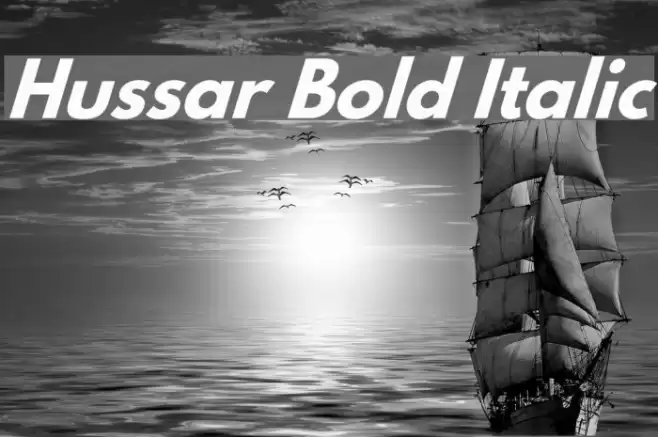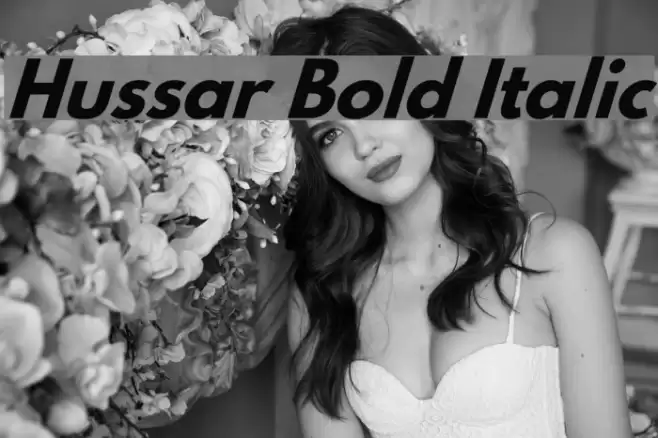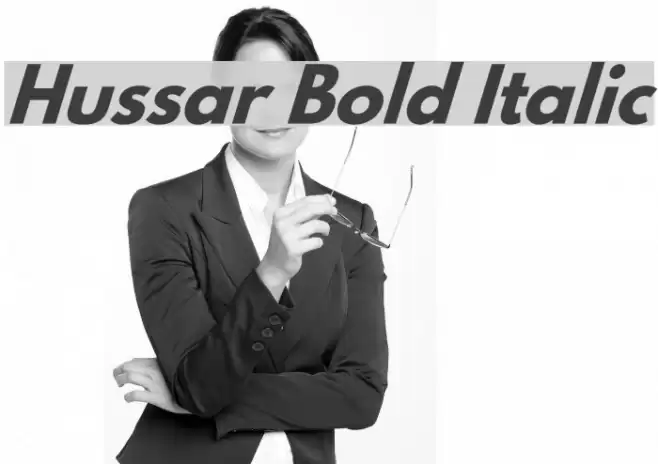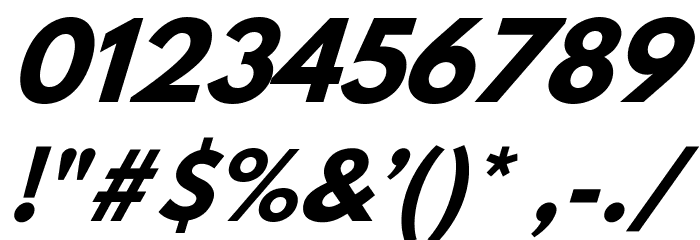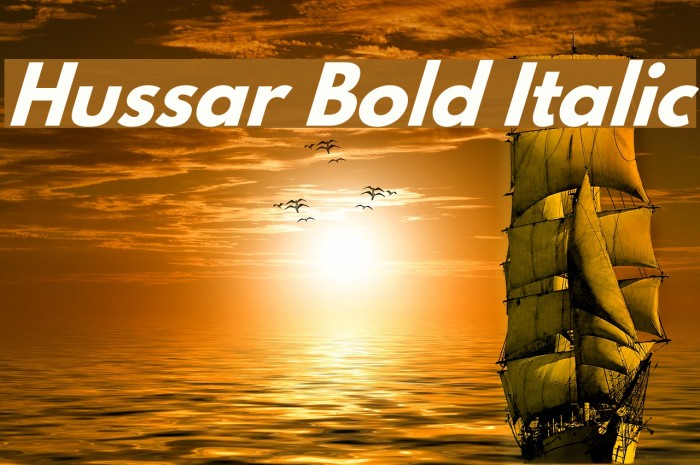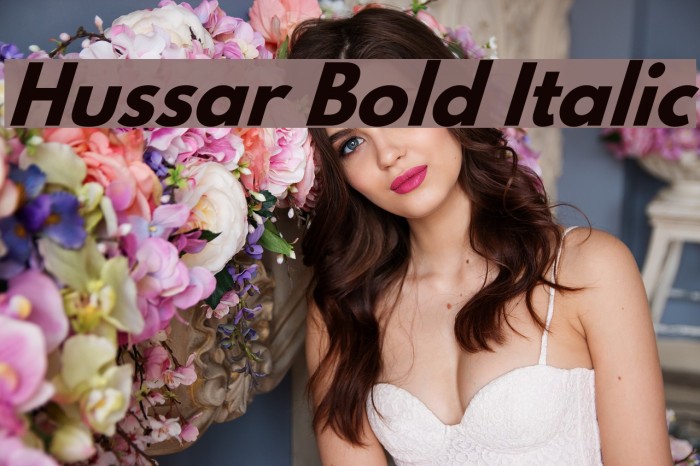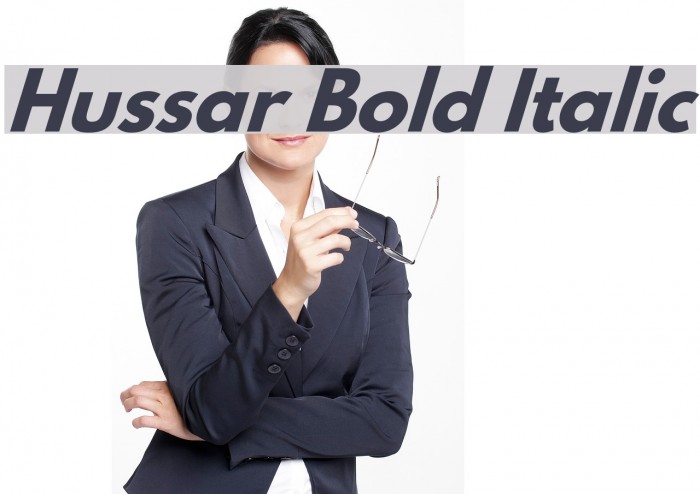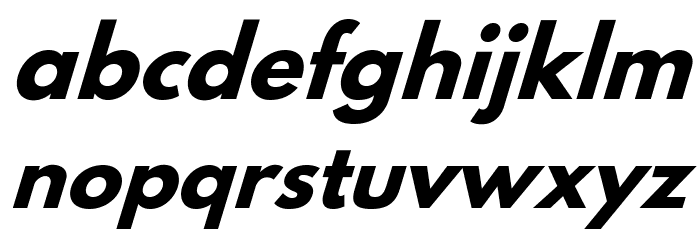
Hussar Bold Italic
This font exhibits a bold and italicized style, characterized by its strong and assertive presence. The letters are slanted, giving a dynamic and forward-moving appearance. The strokes are thick and consistent, providing a sense of stability and confidence. The uppercase and lowercase letters maintain a uniform weight, enhancing readability while retaining a stylish flair. The numerals are clear and bold, matching the overall aesthetic of the alphabet. Special characters are well-integrated, ensuring versatility in various applications. This font's boldness and italicization make it suitable for impactful and attention-grabbing designs.
A bold, italicized font with strong, consistent strokes and a dynamic appearance.
- Proposed Projects: Ideal for branding, headlines, posters, and any design requiring a bold statement.
- Use Case: Headlines, Logos, Posters